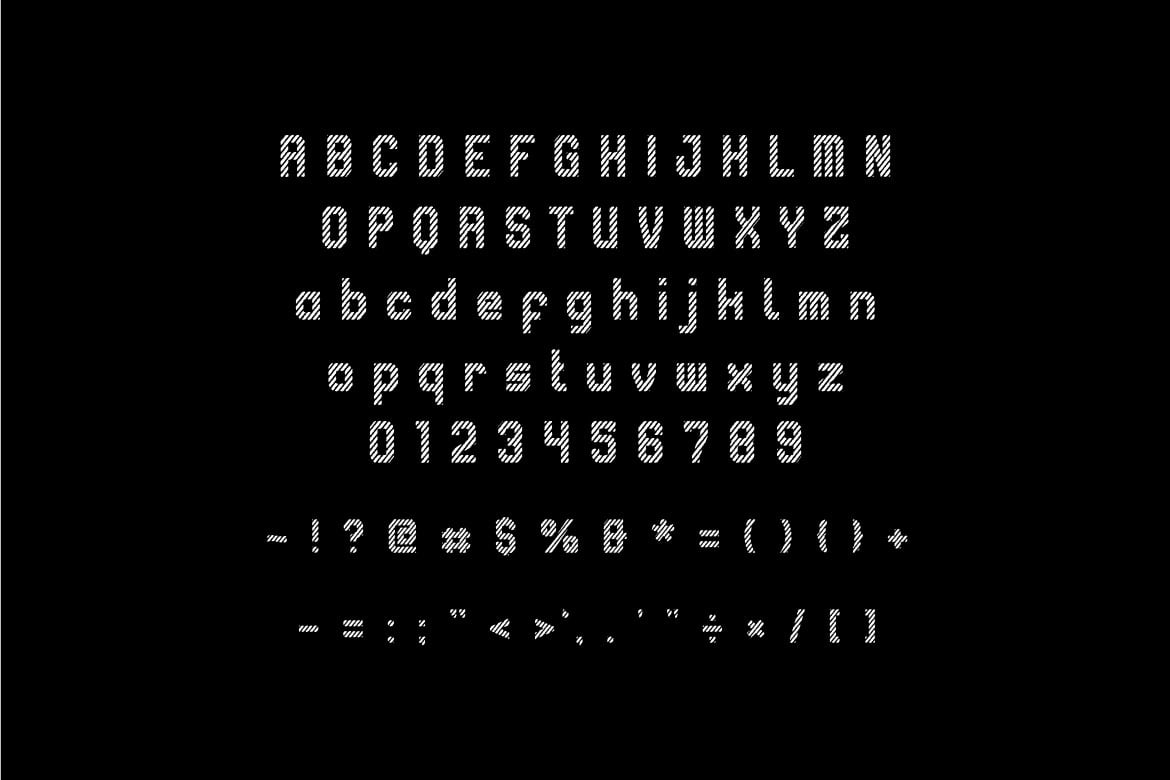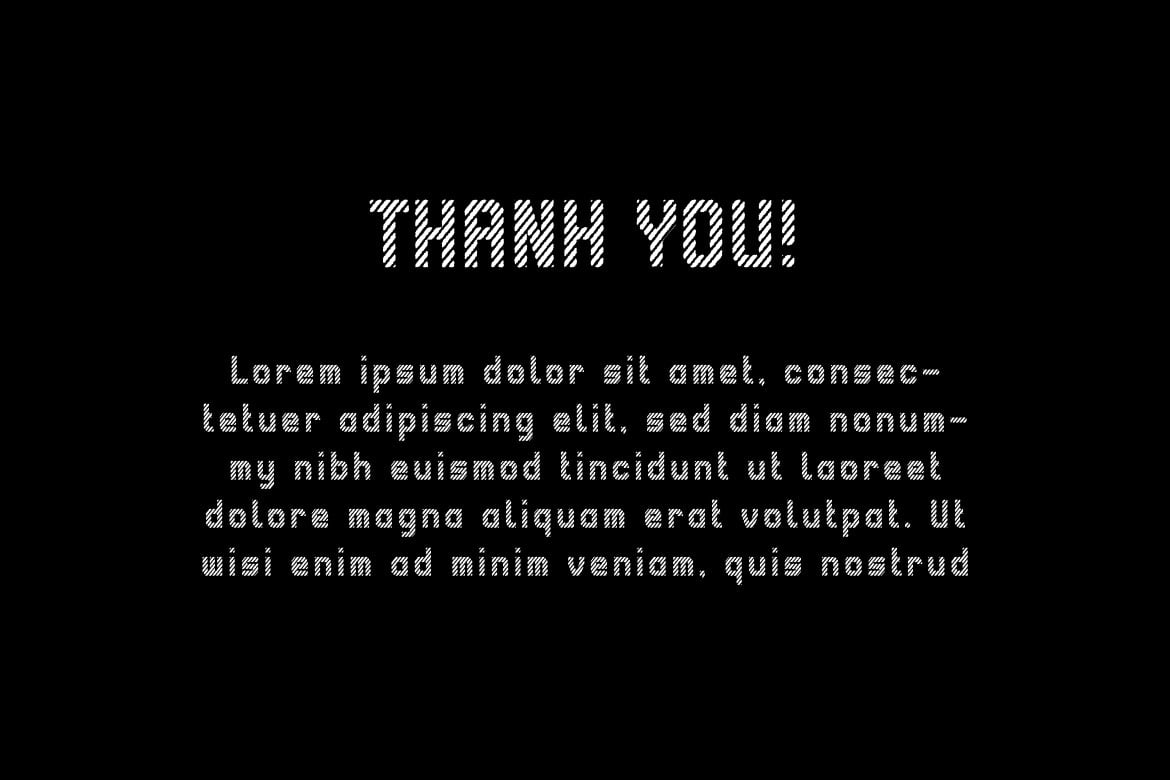
Ropelia – Display font
If you are looking for a classic with a rope looking display font, meet Ropelia
Ropelia is perfect for any works, such as Racing poster, card, book title, headline of news, banner, flyer, stationery and many more. It also can be used in Any scale work.